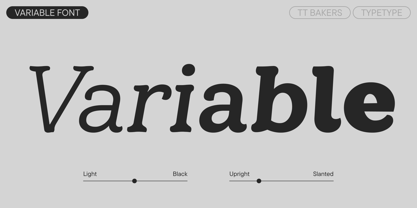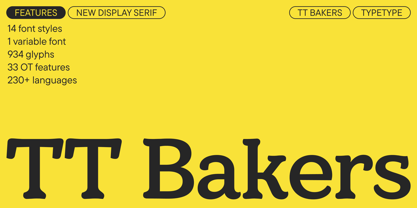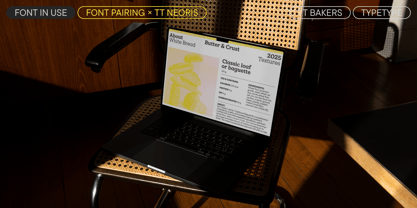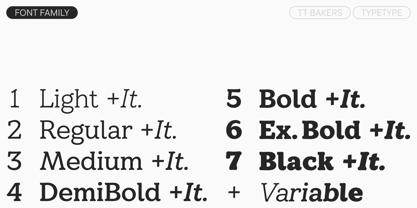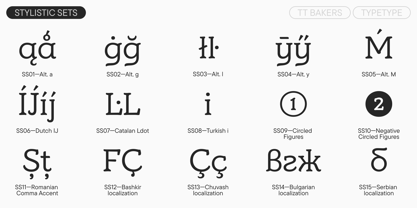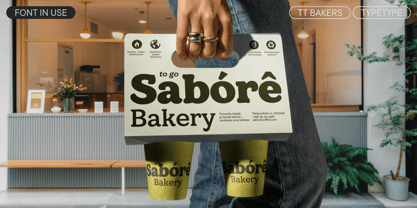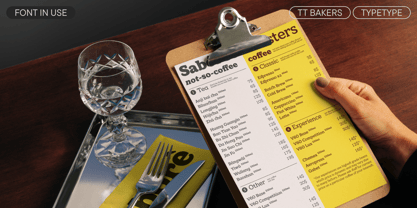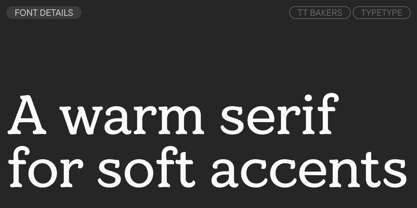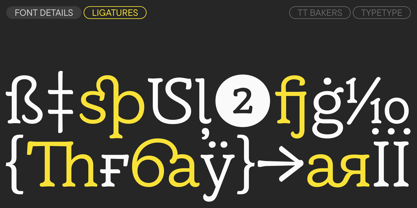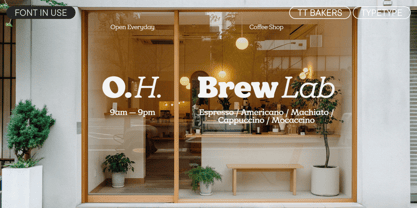
TT Bakers
The TT Bakers Font Family was designed by Ivan Gladkikh, Marina Khodak, TypeType Team and published by TypeType. TT Bakers contains 15 styles and family package options.
Introducing the new display typeface, TT Bakers version 1.000!
TT Bakers is a fluid serif with a soft and gentle character. Among the visual features of TT Bakers are a balanced contrast, generous spacing, and asymmetrical serifs that create a directional rhythm. Thanks to its thoughtful construction, this typeface maintains excellent readability even in text settings. And at large and medium sizes, its character emerges: fluid strokes, reminiscent of a brush's movement, are revealed in all their expressiveness.
TT Bakers is an ideal solution for food-related projects: from packaging design, menus, and shop windows to creating a complete brand identity. We feel it would look especially harmonious in the identity for bakeries and brands that produce baked goods—and this is what we've reflected in the typeface's name. However, thanks to its versatile character, this typeface is also perfectly suited for projects with other themes.
TT Bakers includes:
• 15 styles: 7 uprights, 7 italics, and 1 variable font that changes along the weight and slant axes
• 934 glyphs per style
• 33 OpenType features
• Support for over 230 languages
TT Bakers — a warm serif for soft accents!